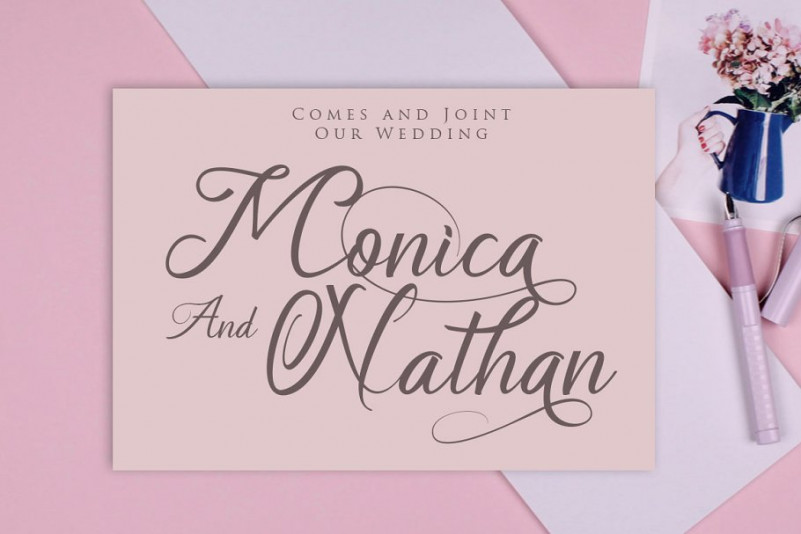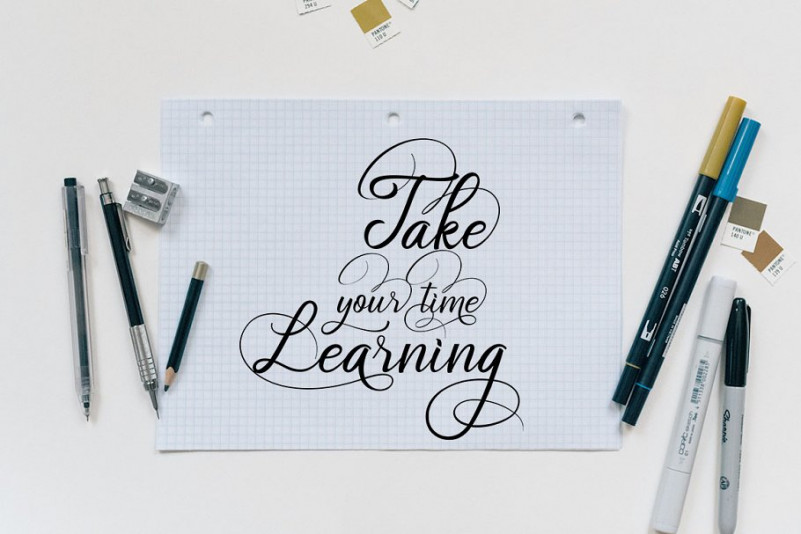
Soulmate Calligraphy Font is a stylish modern calligraphy font with casual chic flair. For those of you who are needing a touch of elegance and modernity for your designs, this font was created for you. Soulmate comes with luxury feel with many alternates for expression of your letters. The font looks great on business cards, invitations, flyiers and more! You can also pair it with serif or sans serif fonts as shown in the preview images.